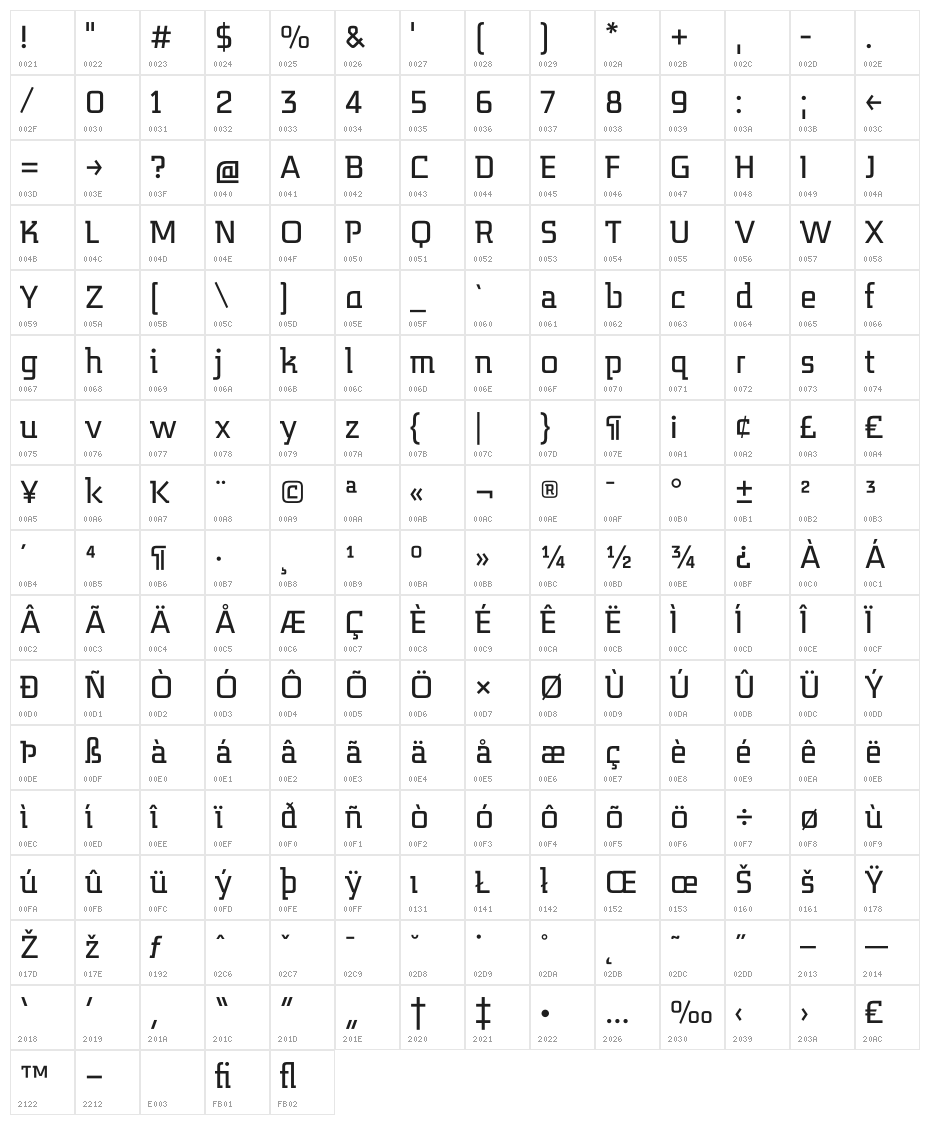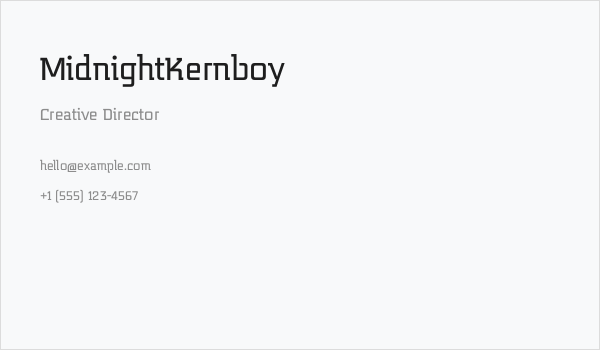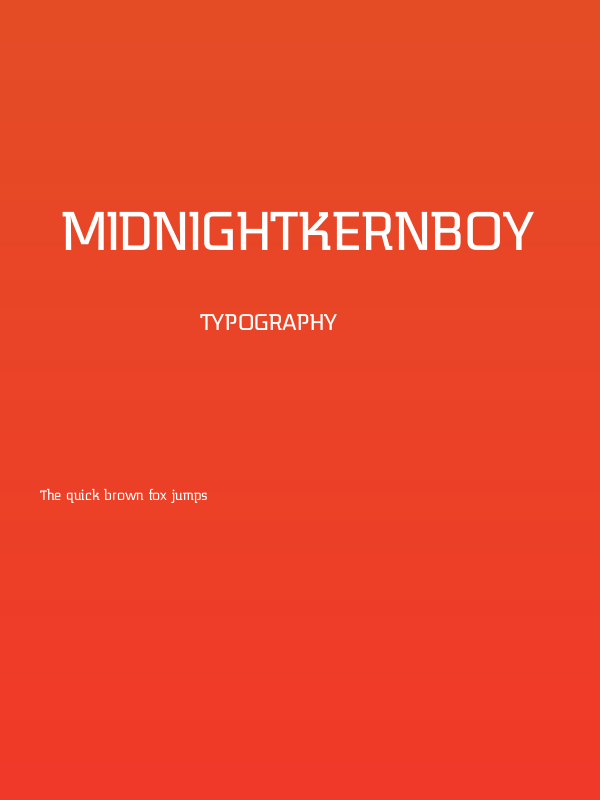
MidnightKernboy Font
MidnightKernboy Description
This font features a modern, geometric design with clean, straight lines and a consistent stroke width. The characters are well-balanced and have a slightly condensed appearance, making them suitable for a variety of applications. The uppercase letters are bold and impactful, while the lowercase letters maintain a harmonious flow. The numerals are clear and distinct, ensuring readability. Special characters are designed with the same attention to detail, providing a cohesive look across all glyphs. The overall style is contemporary, with a hint of industrial influence, making it versatile for both digital and print media.